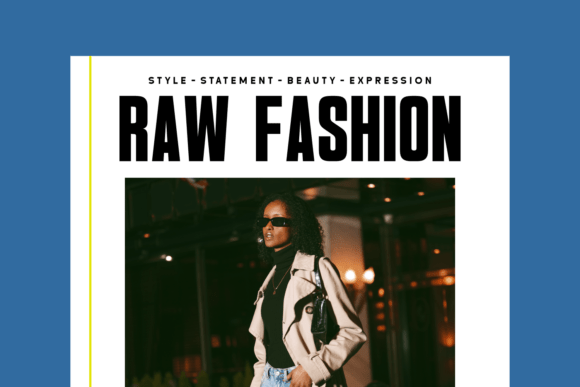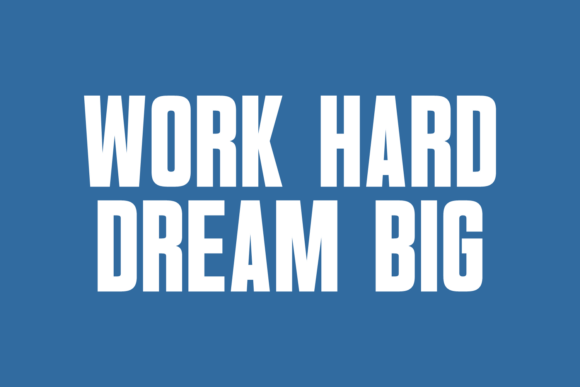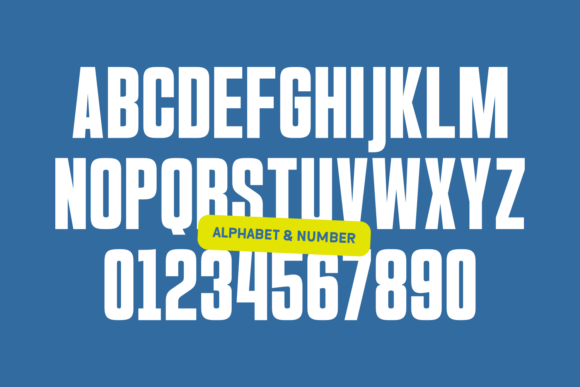
Unleash Bold Aesthetics with Combat Font: The Ultimate Choice for Designers and Crafters
Are you a designer or crafter looking for a font that exudes strength, confidence, and a touch of urban sophistication? Look no further than Combat Font, a forceful and commanding condensed sans serif font designed to make a strong visual impact. With its city-sleek allure, towering letterforms, and robust strokes, Combat is the perfect choice for innovators seeking a vigorous, industrial, or sports-themed aesthetic.
Design Features and Characteristics
Combat Font boasts a range of design features that make it an excellent addition to any design project. Its key characteristics include:
- Condensed sans serif design: A sleek and modern aesthetic that screams urban sophistication.
- Towering, snug letterforms: Creating a sense of grandeur and confidence.
- Hefty, robust strokes: Adding a touch of ruggedness and industrial charm.
- Crispy and dynamic character: Perfect for striking headlines, dramatic film titles, and social media imagery.
Ideal Applications for Combat Font
Combat Font is an incredibly versatile design marvel that lends itself to a wide range of applications, including:
- Print on Demand (POD) enterprises: Elevate your street-savvy apparel, sporty jerseys, cozy hoodies, and gym wear with a bold, professional aesthetic.
- Sports teams and branding: Create a strong, cohesive visual identity for your team or brand.
- Film and video titles: Add a touch of drama and excitement to your titles and credits.
- Social media imagery: Make your social media posts stand out with bold, eye-catching typography.
- Clothing and fashion brands: Infuse your brand with a bubbly, professional vitality.
Why Choose Combat Font?
So why choose Combat Font for your design projects? Here are just a few compelling reasons:
- Unique and bold aesthetic: Stand out from the crowd with a font that exudes confidence and strength.
- Versatility: Suitable for a wide range of applications, from sports teams to fashion brands.
- High-quality design: Crafted with precision and attention to detail, ensuring a professional finish.
In conclusion, Combat Font is an exceptional design asset that is sure to elevate your design projects to new heights. With its bold aesthetic, versatility, and high-quality design, it’s the perfect choice for designers and crafters seeking a strong, professional look. Whether you’re working on a sports team, fashion brand, or Print on Demand enterprise, Combat Font is the ultimate choice for those who demand the best.